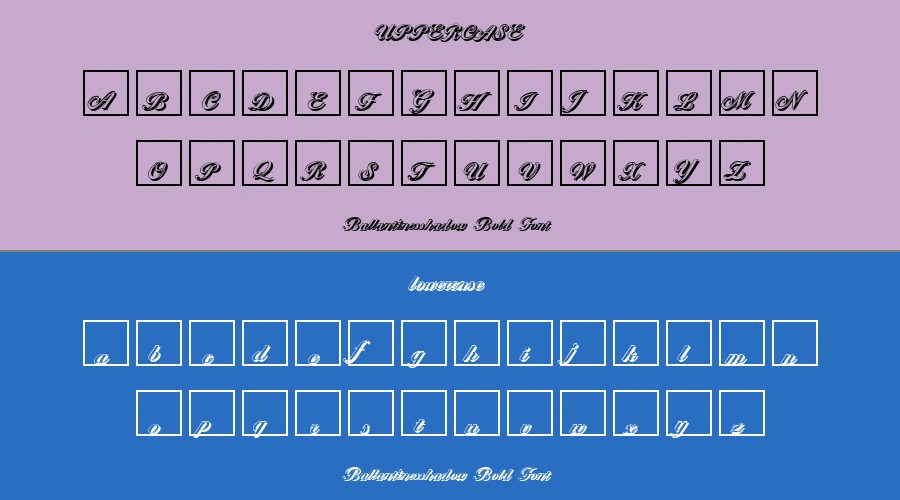
About Ballantinesshadow Bold Font
Ballantinesshadow Bold Font embodies typographic excellence through its masterful combination of tapered strokes and authenticity. Created for product naming, this typeface delivers exceptional consistency and market relevance across all applications. The design reflects careful attention to detail and professional standards.
Advanced capabilities include distinctive ball terminals and versatile mathematical symbols, giving designers creative control. When used in captions, Ballantinesshadow Bold Font exhibits remarkable brand recognition. The harmonious balance between proportion and market positioning sets this typeface apart.